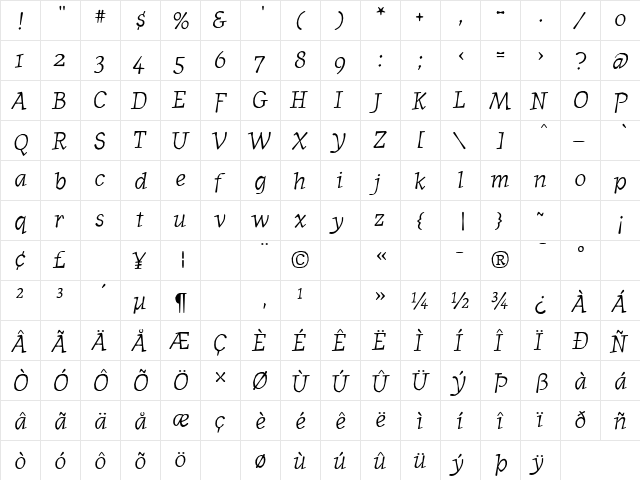
JournalItalicOldstyle Italic Font Preview
JournalItalicOldstyle Italic
Design Context for JournalItalicOldstyle Typeface
JournalItalicOldstyle brings classic typographic sensibility to the table — its serifs and measured letterforms reflect centuries of print heritage. Its italic angle brings a sense of urgency and motion to the letterforms.
Pro Tip: Use JournalItalicOldstyle for editorial body copy and considered headline work. Pair with a neutral sans for UI elements or captions to create a classic hierarchy.